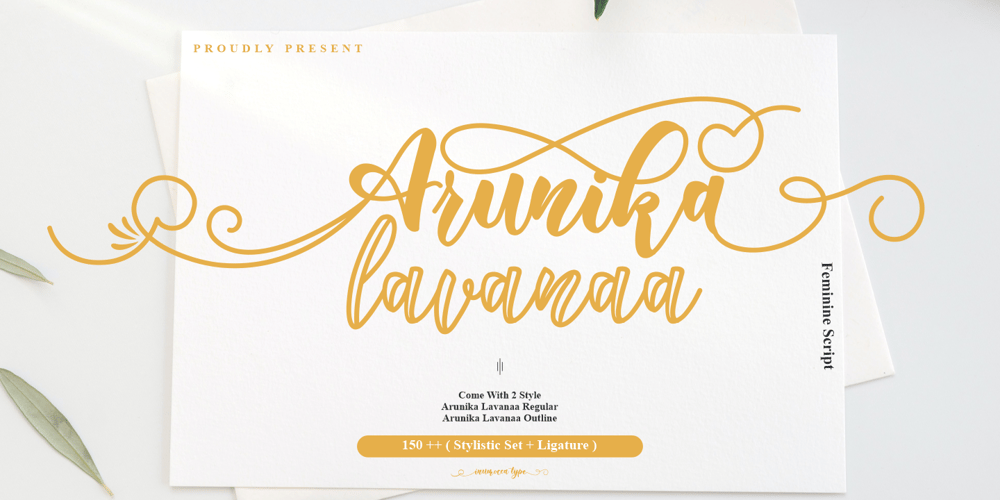
Arunika Lavanaa Font Family was designed by Inu Mocca and published by Inumocca. Arunika Lavanaa contains 2 styles and family package options. Arunika Lavanaa Feminine Script, inspired from Women ornament with beautiful curly.Bold and Otline style from monoline hand lettering,really Easy to make it your own style typography.Good for your Lettering, Signature, Typography, Magazine, Branding, Poster, wedding invitations, Quotes Lettering, and more your project design.- Unique glyphs- Multilingual Characters- UPPERCASE- Lowercase- Numeric- Symbol- Punctuation Character- Ligature- SS01, SS02, SS03, SS04inumocca type